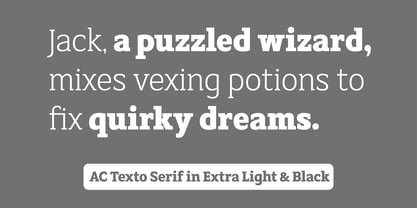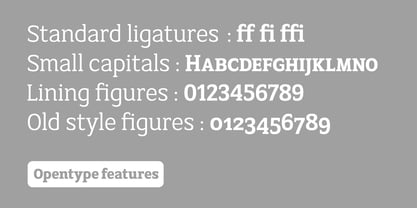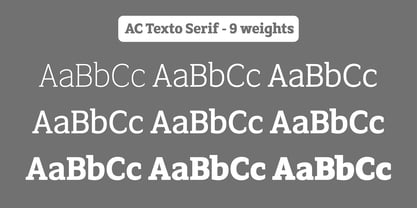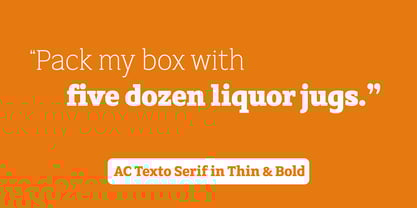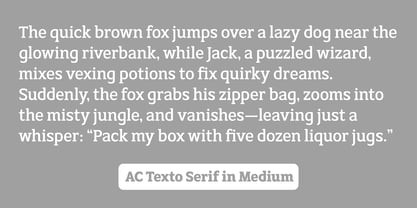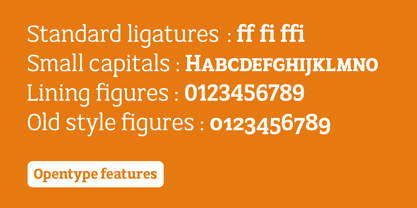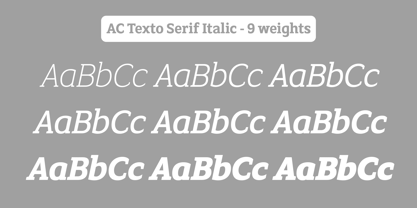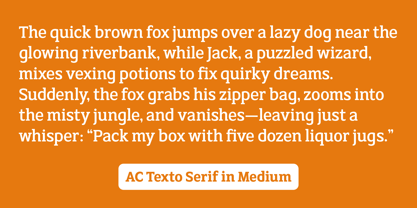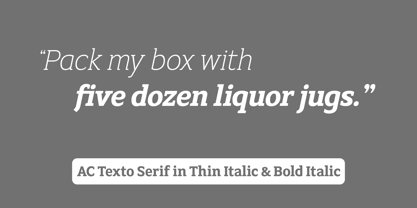
AC Texto Serif Pro
by Antoine Crama
The AC Texto Serif Pro Font Family was designed by Antoine Crama and published by Antoine Crama. AC Texto Serif Pro contains 18 styles and family package options. More about this family
AC Texto Serif is a contemporary serif version of AC Texto designed by Antoine Crama. It is fresh and modern, useful for editorial design (magazines, essays, reports, visual identities) and suitable for text composition. It is based on the font family AC Texto. A well-calibrated range of weights and styles supports clear hierarchy from headlines to footnotes, all while maintaining a refined, understated character. The Pro version brings new OpenType features, such as small capitals and old style figures.